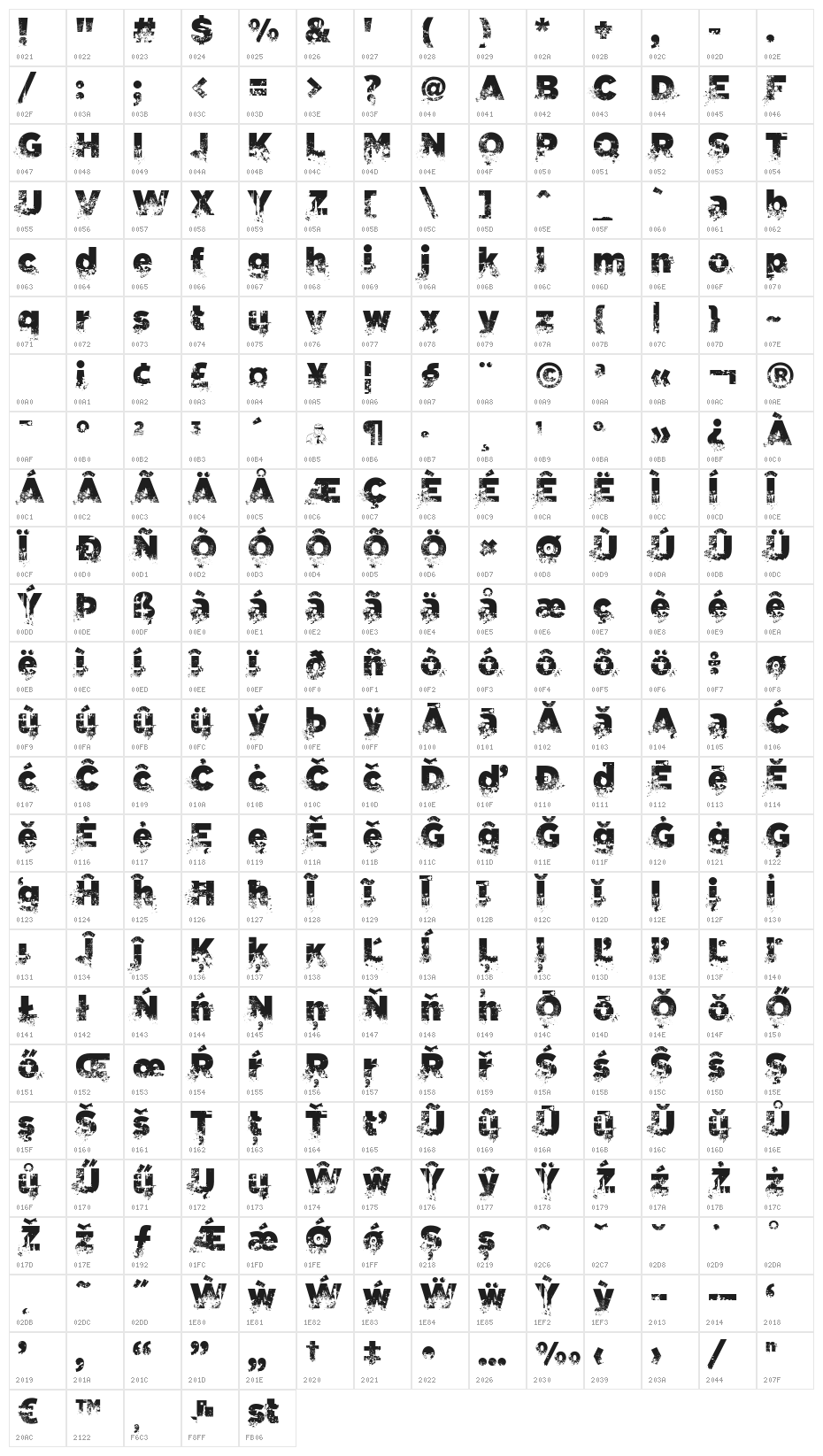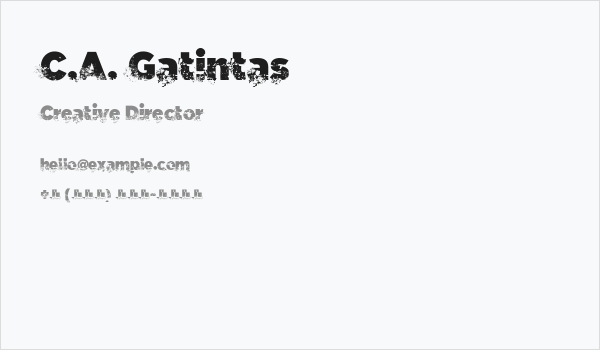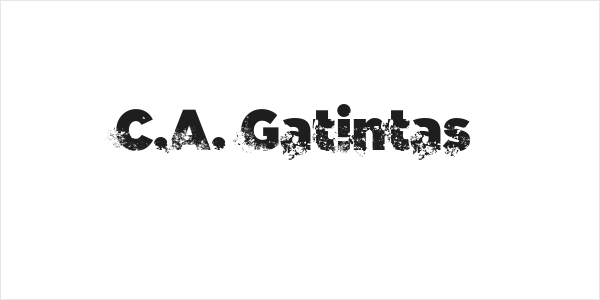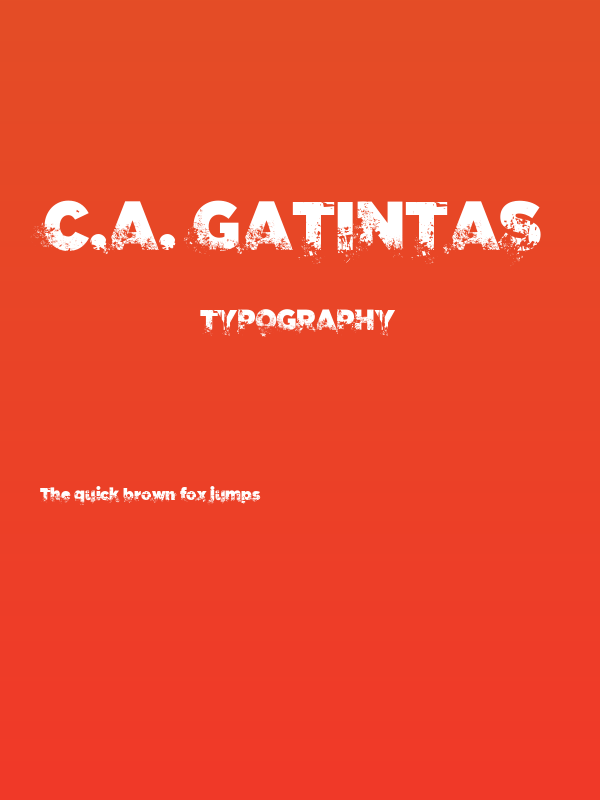
C.A. Gatintas Font
C.A. Gatintas Description
This font features a bold, distressed style with a grunge texture that gives it a worn, weathered appearance. The characters are heavily textured, creating a sense of depth and ruggedness. The uppercase and lowercase letters maintain a consistent style, with rough edges and a bold presence. The numerals and special characters follow the same distressed pattern, ensuring uniformity across all glyphs. This font is ideal for projects that require a gritty, urban aesthetic, such as music album covers, posters, or edgy branding materials.
| Overall Style | Grunge, Urban, Distressed |
| Proposed Projects | Album covers, posters, branding materials, streetwear designs, and event flyers. |